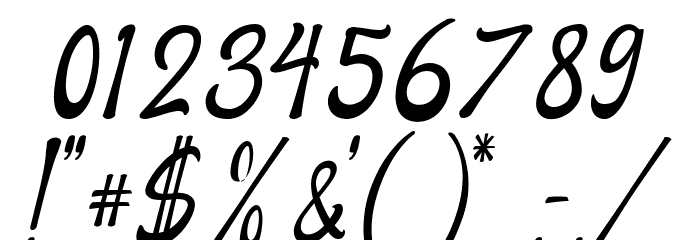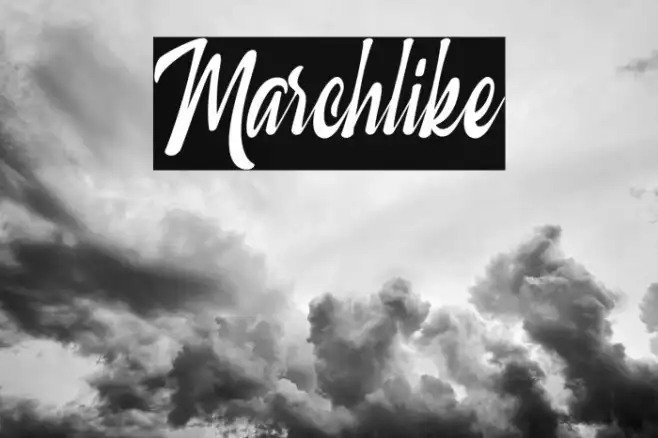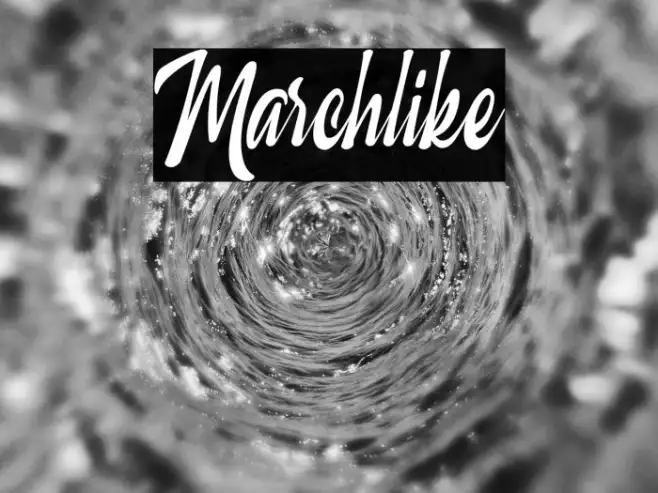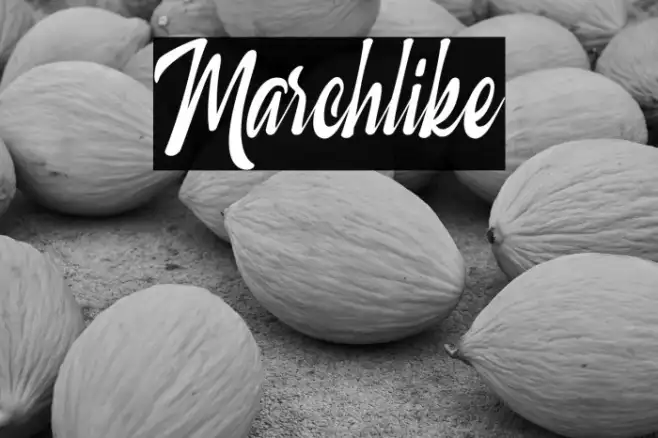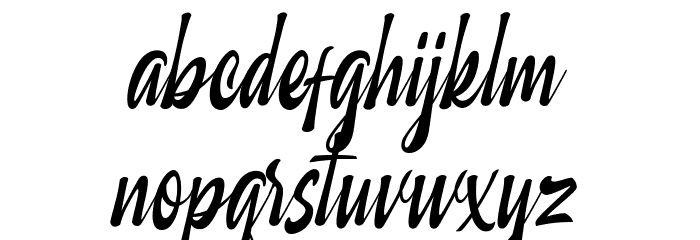
Marchlike Font
This font features a dynamic and flowing script style, characterized by its elegant and cursive letterforms. The uppercase letters are bold and sweeping, with a slight slant that adds a sense of movement and grace. The lowercase letters maintain a consistent flow, connecting smoothly in a way that mimics natural handwriting. The numerals are distinct and easy to read, maintaining the same cursive style. Special characters are integrated seamlessly, ensuring a cohesive look across all text. The overall appearance is both stylish and legible, making it suitable for a variety of creative applications.
A dynamic and flowing script font with elegant cursive letterforms.
• Proposed Projects: Ideal for wedding invitations, greeting cards, branding, and logo design.
• Category: Script
• Overall Style: Decorative
• Use Case: Headlines, Logos